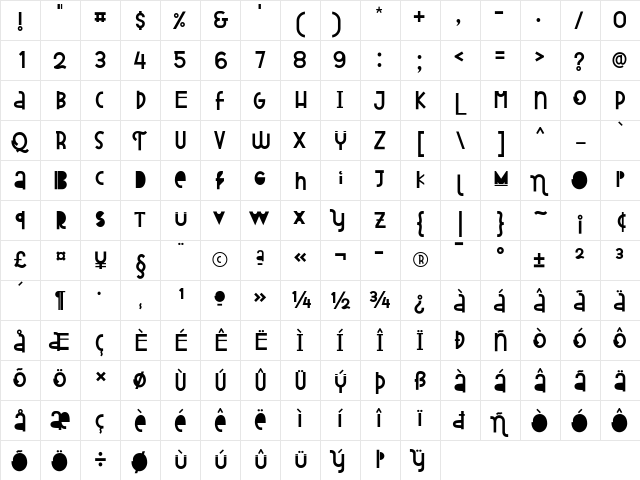
Attracted Monday Regular
| Foundry | 7NTypes |
| Designer | Keithzo; Situjuh Nazara |
Design Context for Attracted Monday Typeface
Attracted Monday is a composed and adaptable typeface that performs quietly and consistently across a wide range of design contexts.